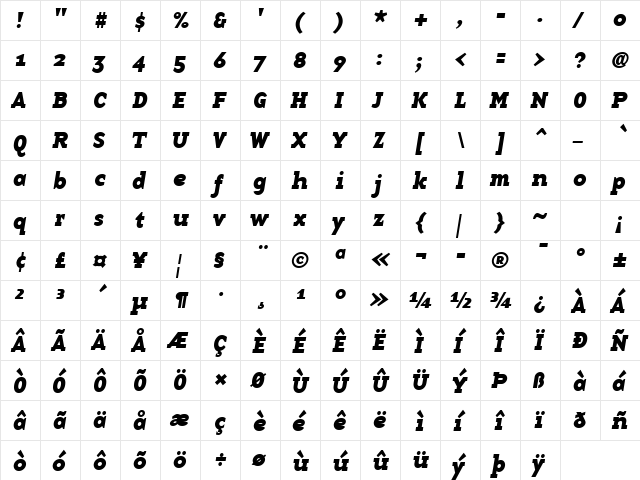
BaseTwelveSerif Bold Italic Font Preview
Design Context for BaseTwelveSerif Typeface
BaseTwelveSerif brings classic typographic sensibility to the table — its serifs and measured letterforms reflect centuries of print heritage. The slanted form adds forward momentum and visual energy. The heavy weight commands attention and anchors typographic hierarchies.
Pro Tip: Use BaseTwelveSerif for editorial body copy and considered headline work. Pair with a neutral sans for UI elements or captions to create a classic hierarchy.